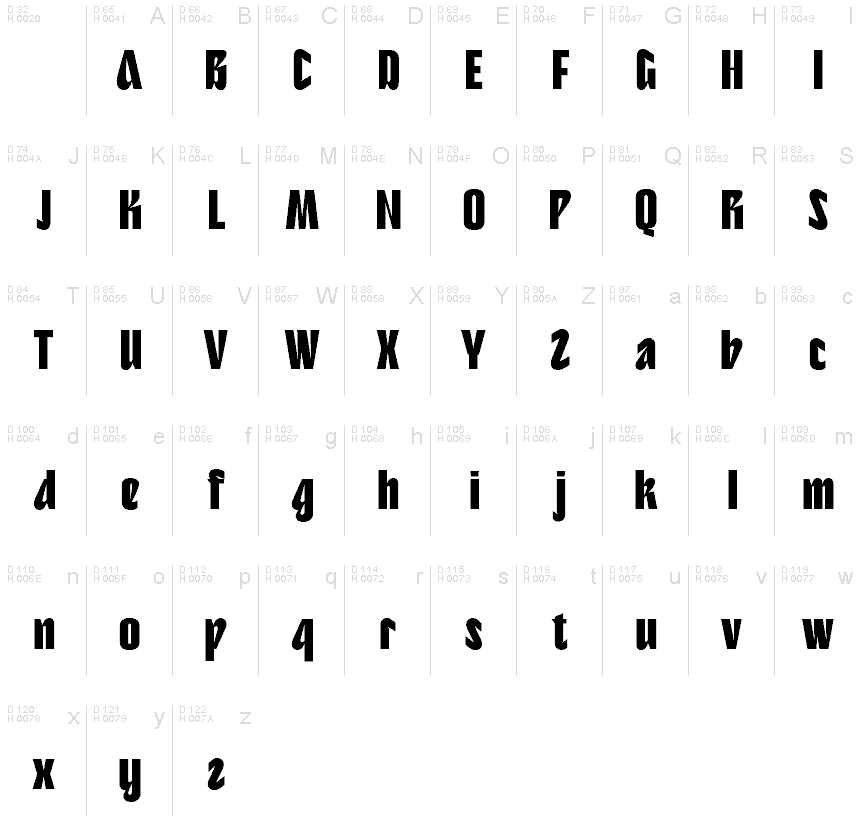
CS Blame Regular Demo
CS Blame font is a modern take on avant-garde typography. Created by Craft Supply Co., this geometric font highlights angular characters that form a striking design. Its vivid appearance has an immediate dramatic impact on viewers, which makes it memorable and difficult to ignore. CS Blame is flexible in its usage, with every project benefitting from something new and experimental.
Projects relating to branding, logos, editorial design, photography watermarks, social media posts, advertisements for magazines or newspapers can feature the free bold sans serif font as can invitations and business cards. Still and animated websites will also have something to add within their pages thanks to CS Blame’s dazzling appearance.